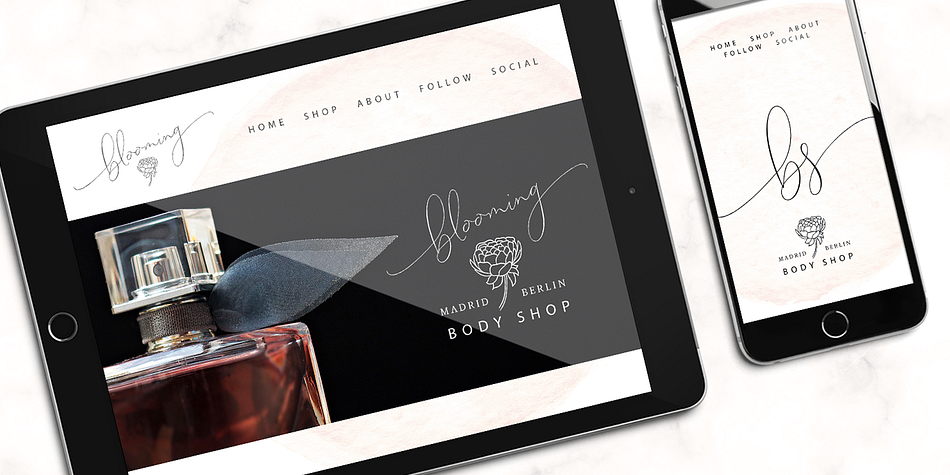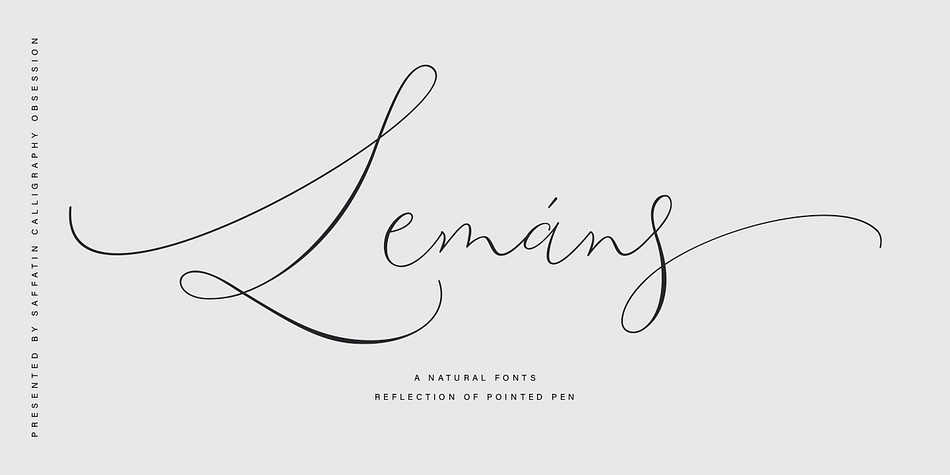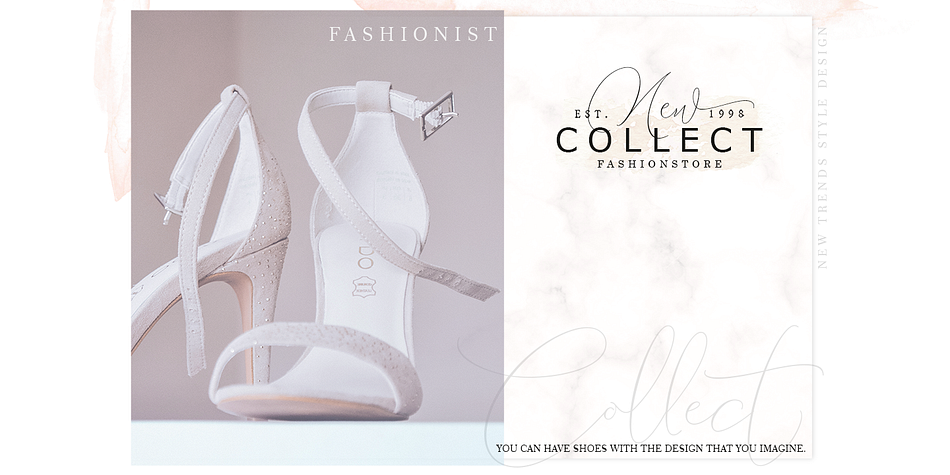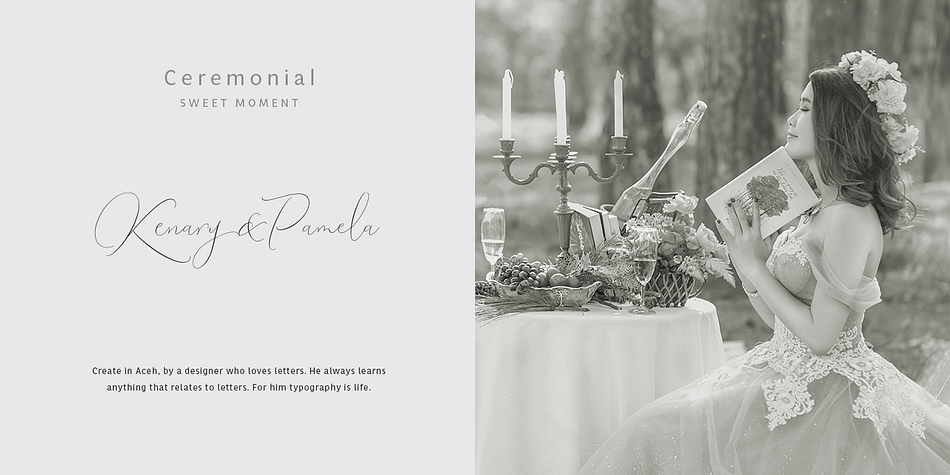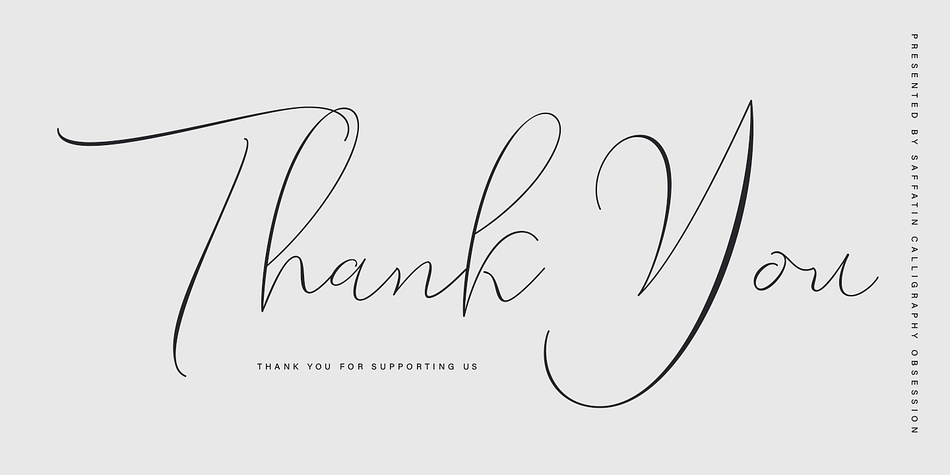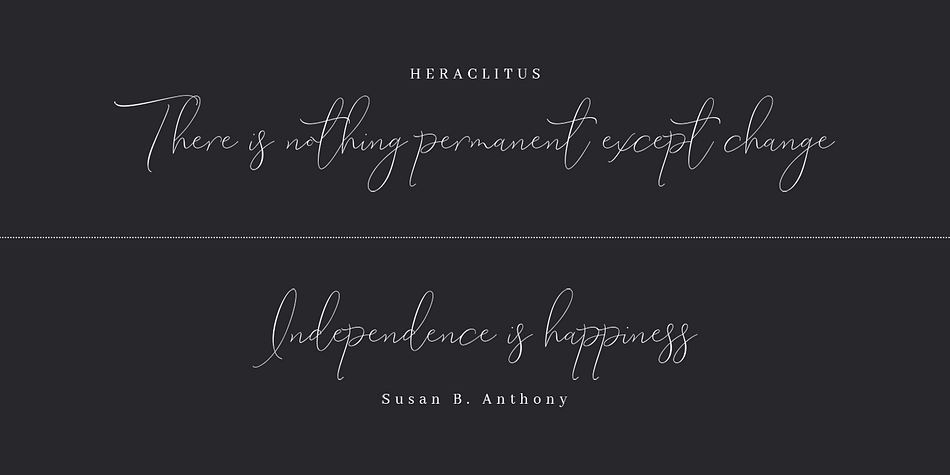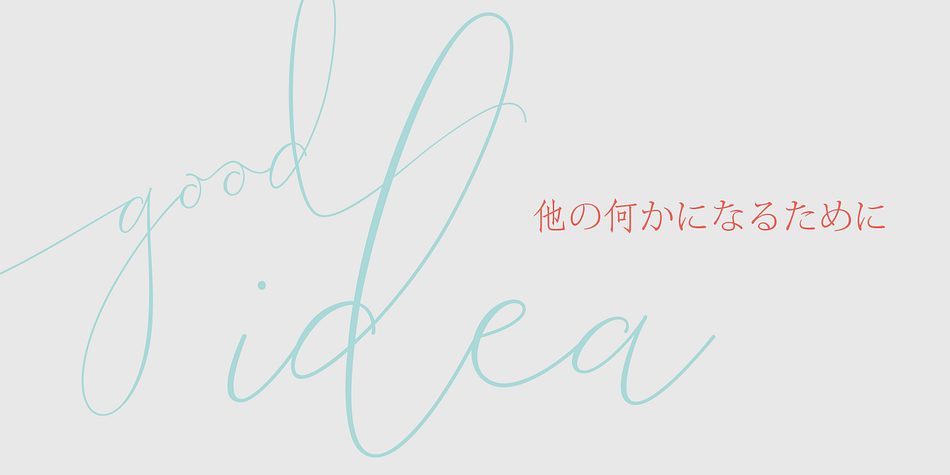
Lemans Pen Script
Designed by Sarwo Edi, Lemans Pen Script is a script font family published by Saffatin Co.
Lemans Pen Script is a refined typeface that draws inspiration from classic calligraphy, reimagined with a modern, minimalist aesthetic. Characterized by its ultra-thin strokes, elegant curves, and spontaneous flow, this script font offers a clean yet expressive look with a touch of wild energy.
The font includes a full set of beautifully crafted uppercase and lowercase letters, numerals, a wide range of punctuation marks, and stylish ligatures. Each lowercase letter features distinctive beginning and ending swashes, adding flair and sophistication to your designs.
Lemans Pen Script also supports accented characters for Central and Western European languages (including À, Â, Æ, È, Ë, ã, ä, æ, è, and more), making it versatile for multilingual projects.